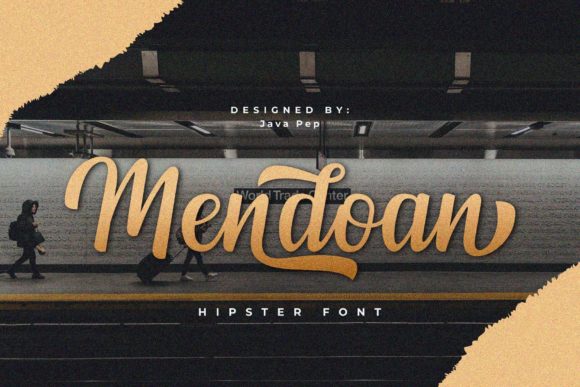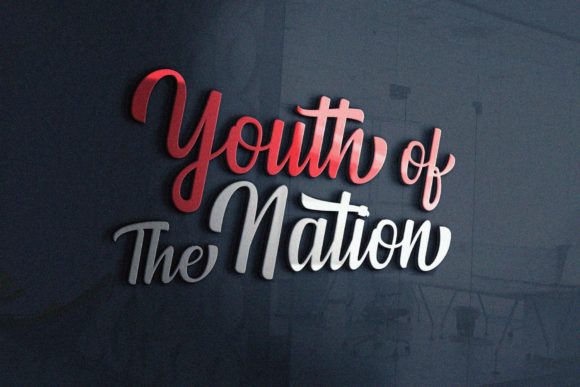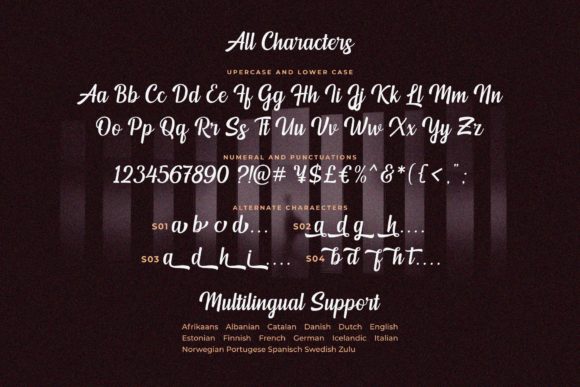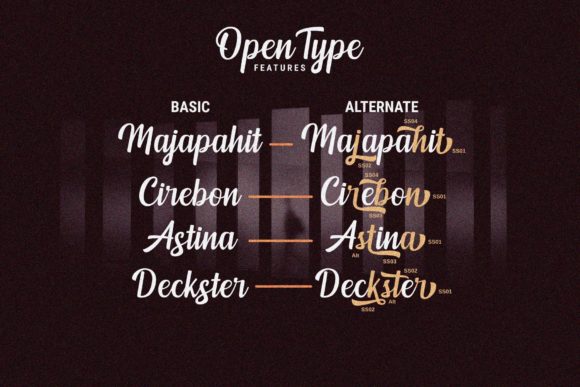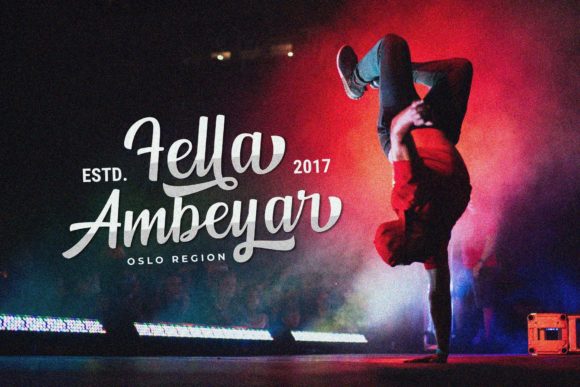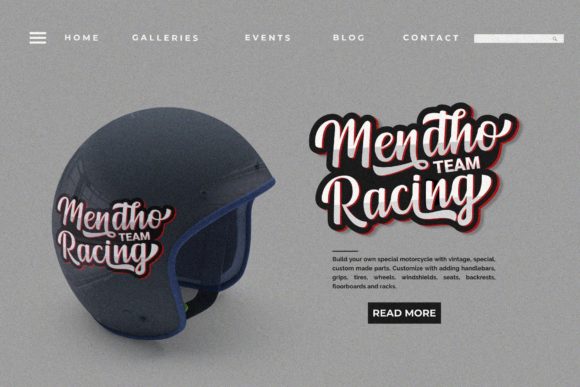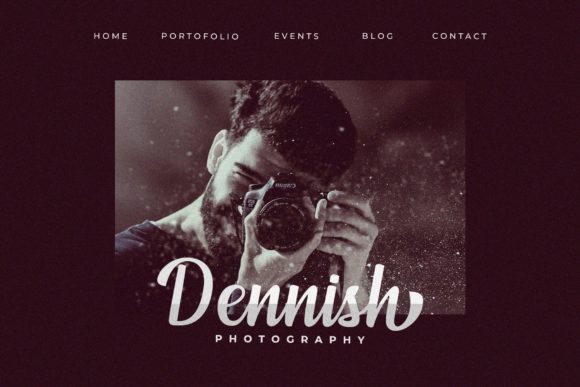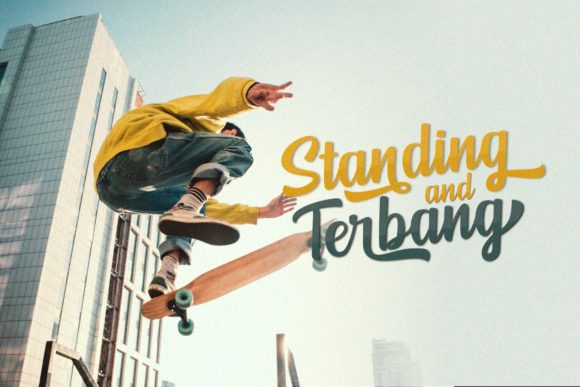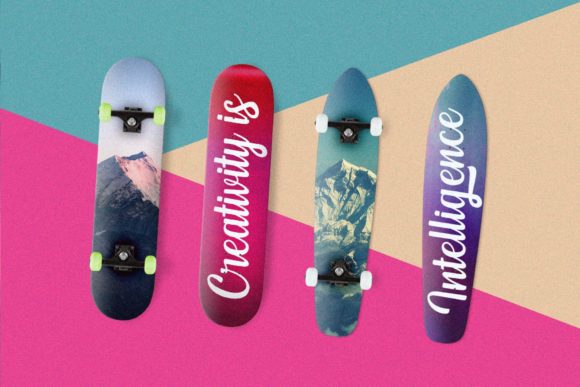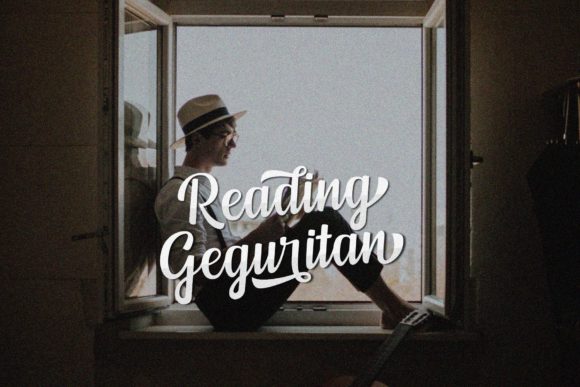
Mendoan Font
About Mendoan Font
Mendoan brings back the iconic vintage advertising fonts of the past century. This dynamic and nostalgic script will deliver any message with style and confidence!